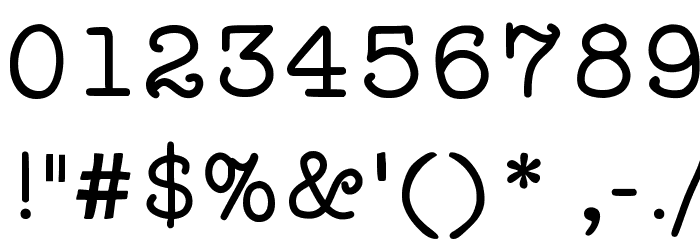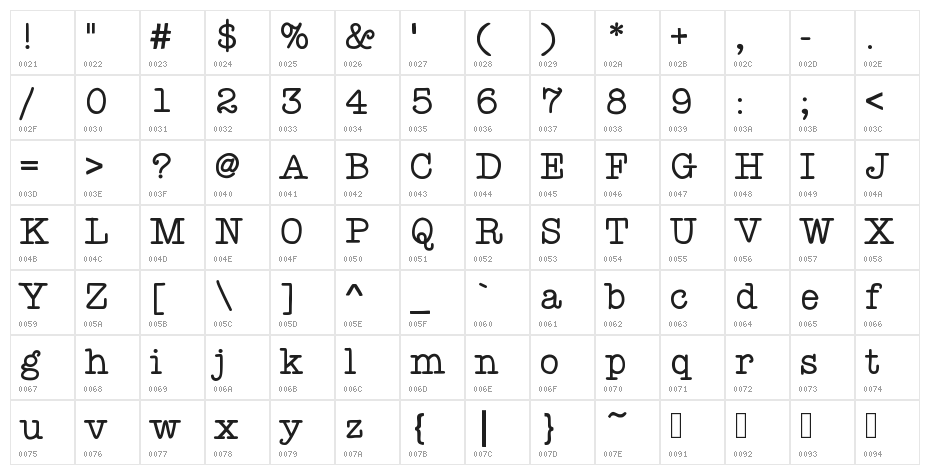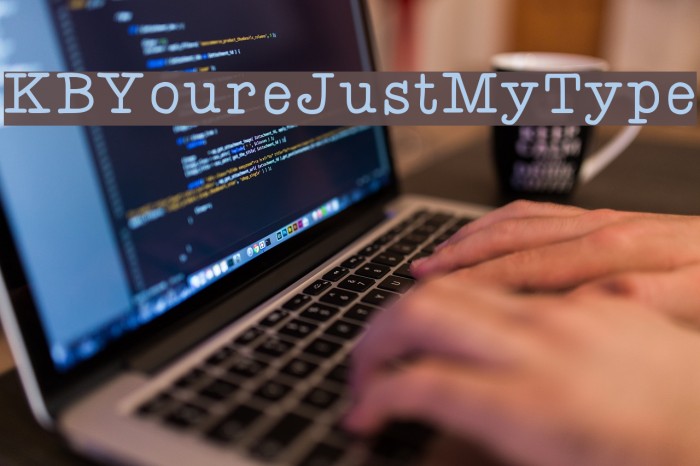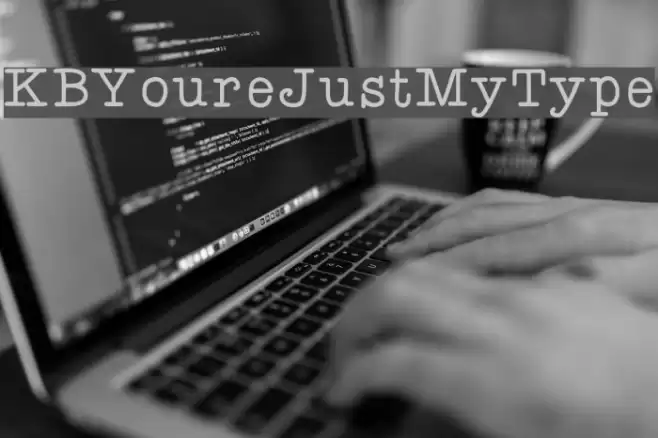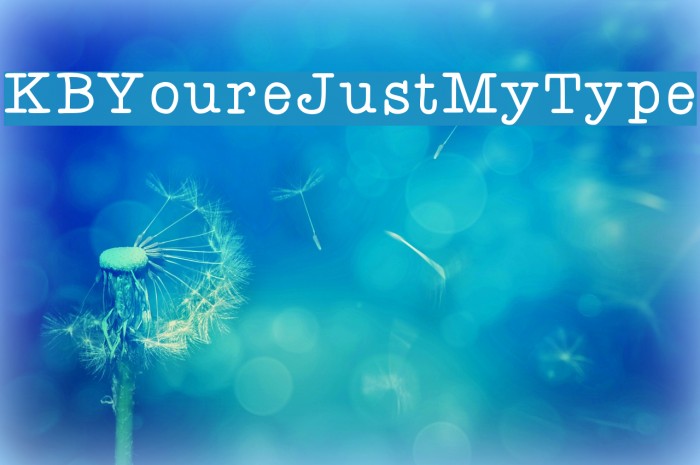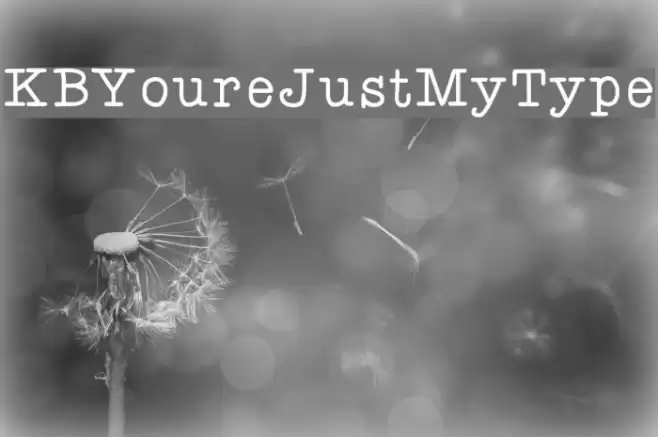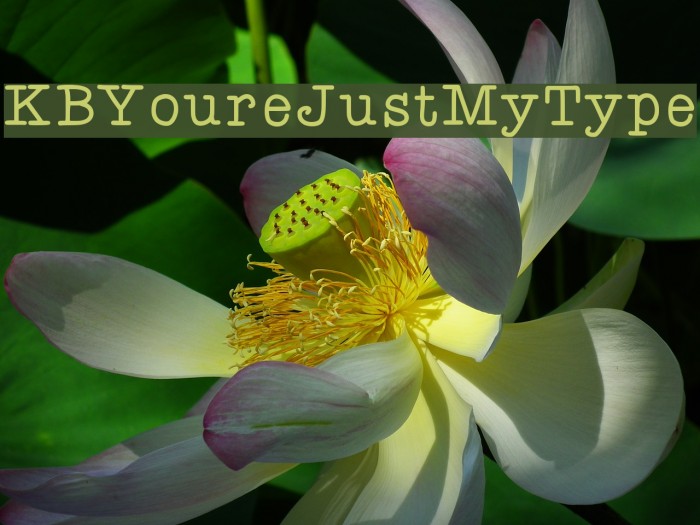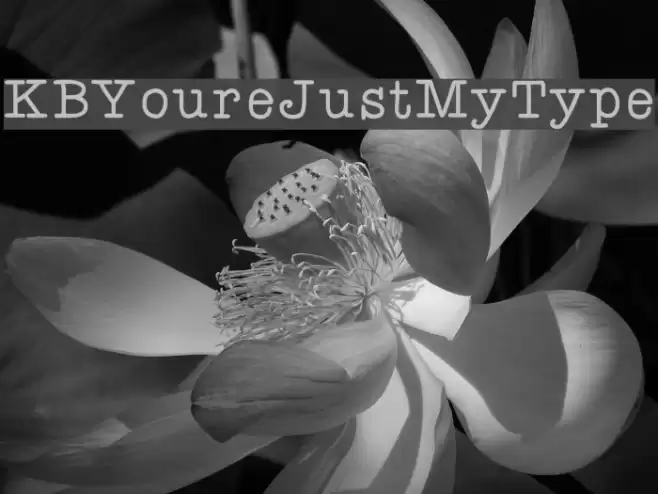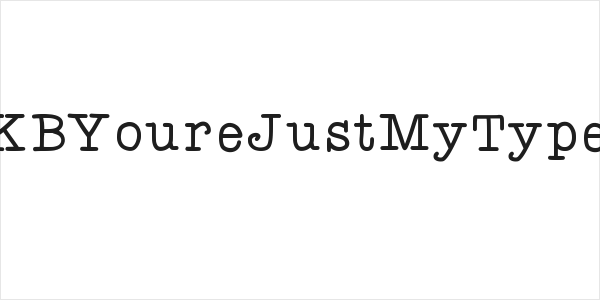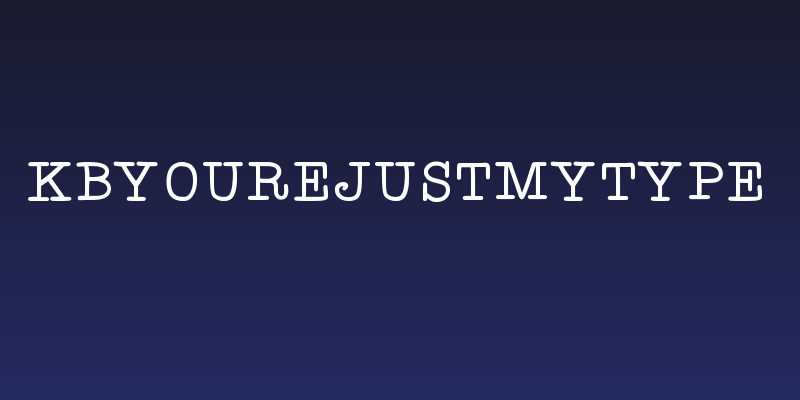
KBYoureJustMyType Font
KBYoureJustMyType Description
This typeface features a classic typewriter style with monospaced characters, giving it a vintage and mechanical feel. The letters are evenly spaced, providing a uniform appearance across both uppercase and lowercase alphabets. The font includes a full set of numerals and a variety of punctuation marks, maintaining a consistent stroke width throughout. The serifs are prominent and add to the retro aesthetic, making it suitable for projects that aim to evoke nostalgia or a sense of history. Its clean and straightforward design ensures readability, while the monospaced nature makes it ideal for coding or technical documents.
| Use Case | Coding, Technical documents, Retro designs |
| Proposed Projects | Ideal for retro-themed designs, coding projects, technical documents, and any creative work that requires a nostalgic or mechanical touch. |